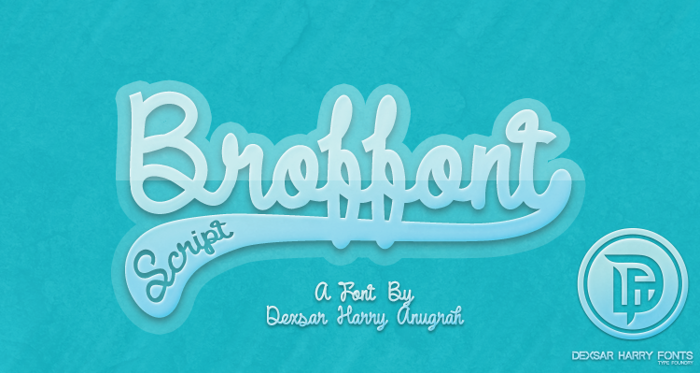
DHF Broffont Script Font
DHF Broffont Script
Broffont Script is a script font inspired from baseball logo & Vintage logo. This font have 2 variant that is "Broffont Script & Broffont Script Swash" that comes with 322 Glyphs & OpenType feature : ligatures and Stylistic Alternate.
This is awesome, but how do I get the tail to show up?
@briansk : Type your word and always end with ( ) or } ex: Broffont) or Broffont(
I write the ) and the tail doesn't show up. What can I do?
@Criisdiiez : Hi... sorry i've update this font and i change the tail from ( ) to 1 3 4 0. Just type your word and end with 1 3 4 0 ex: Broffont1 and it will work for you. Thank you! 😄
@BethBryant : Hi, Full version have many tail but for this version just have 4 tail. To show tail, just type your text, and end with 1 3 4 0 ex: Broffont1 it will work for you. Thank you! 😄
Love this font! How do I get writing in the tail where it says script?